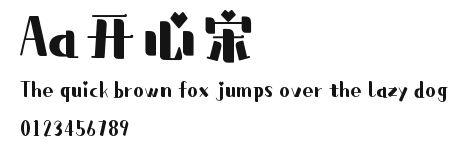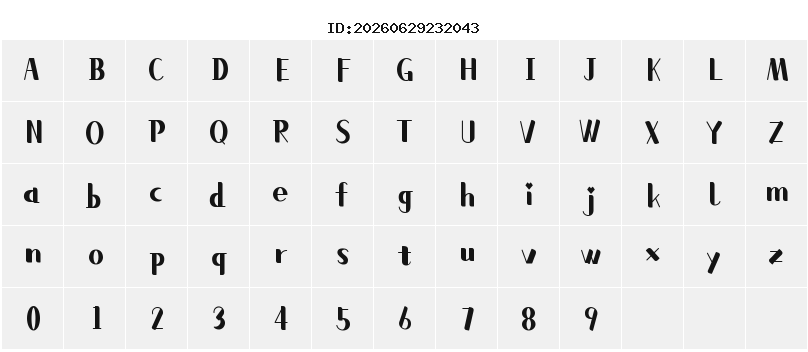
Aa开心宋 Preview
• Font Name: Aa开心宋
• Font Style: 常规
• Font ID: 1.000;Aa;AaKXS;2021
• Full Font Name: Aa开心宋
• PostScript Name: AaKXS
• Character Count: 8010
• Designer: Aa
• Manufacturer: 翰美互通(厦门)科技有限公司
• Description: AaKXS is a fantastic font with excellent features designed for user interfaces and electronic communications.
About Aa开心宋.ttf
Aa开心宋.ttf is a modern, elegant sans-serif font designed for ultimate readability and visual harmony. Perfect for branding, headlines, web design, and print materials.